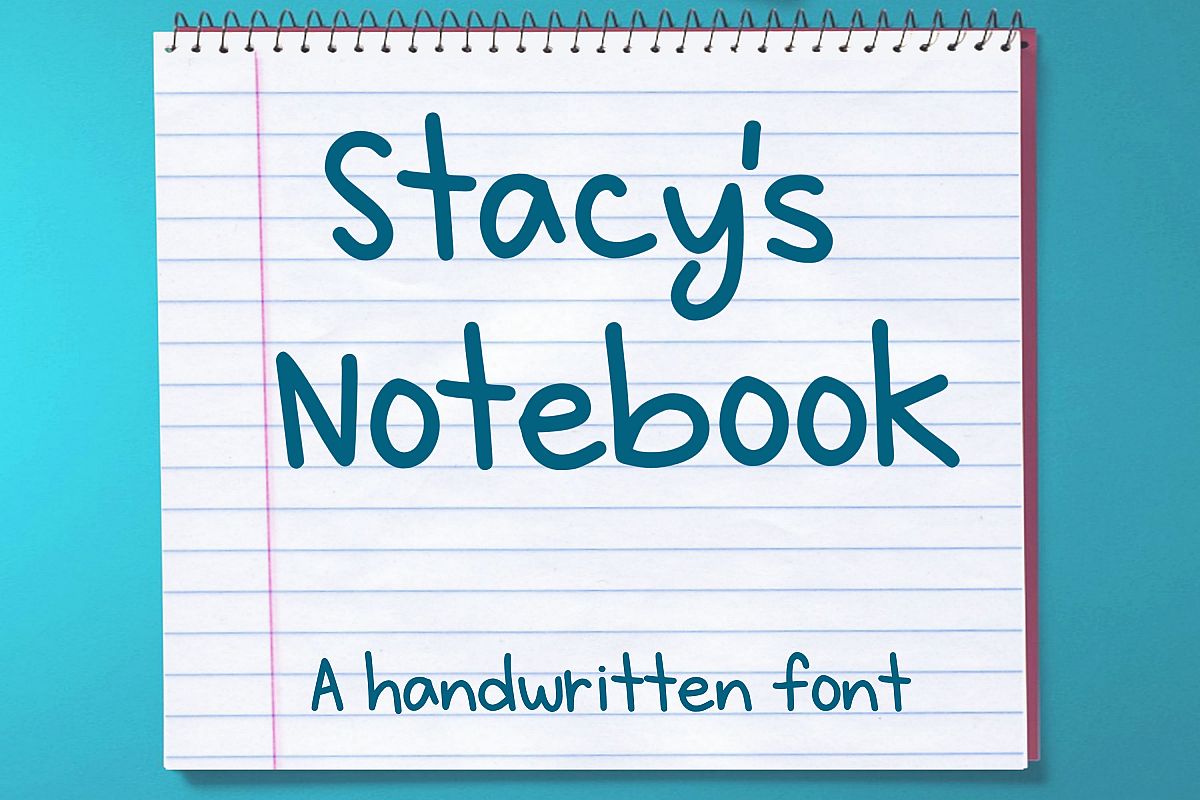
Stacy's Notebook - A handwritten font
Stacy's notebook is a handwritten font made up of capital letters A-Z, lowercase letters a-z,  numbers 0-9, accented characters and punctuation. This was really fun for me to design because it is the handwriting I use on a day to day basis - for notes, and other stuff. Instead of hand lettering or digitally creating the letters, I wrote a bunch of paragraphs on lined paper and later selected letters to convert to the font. I hope you like it!